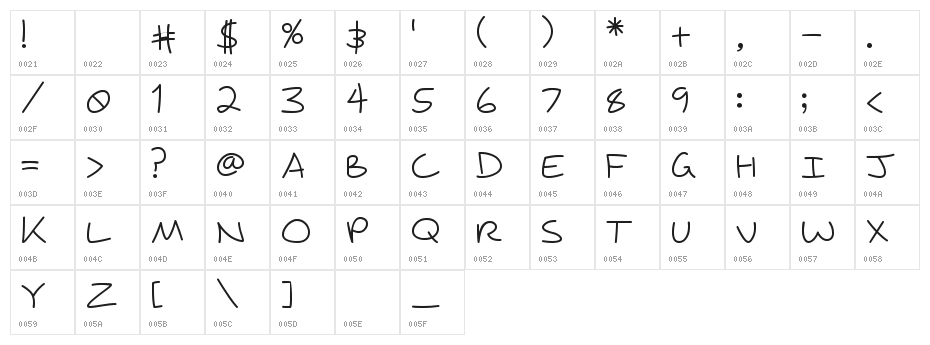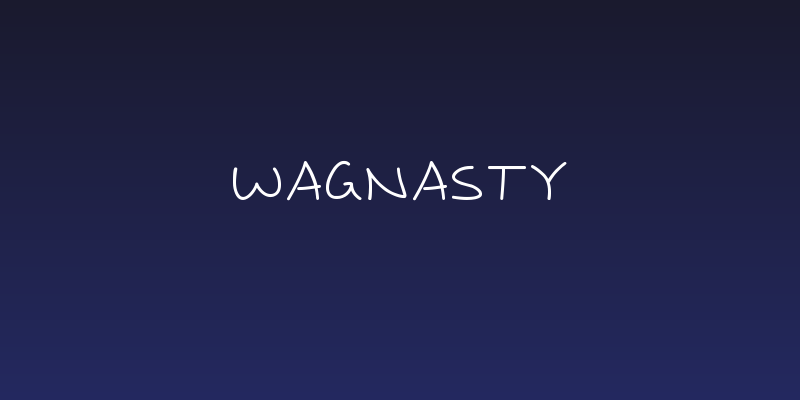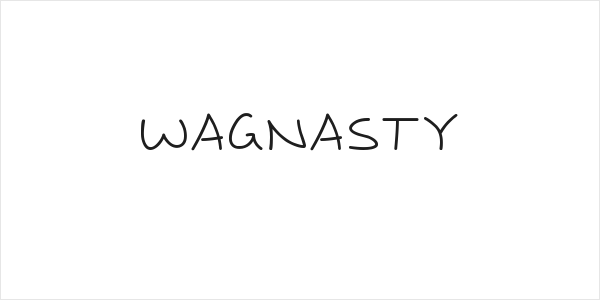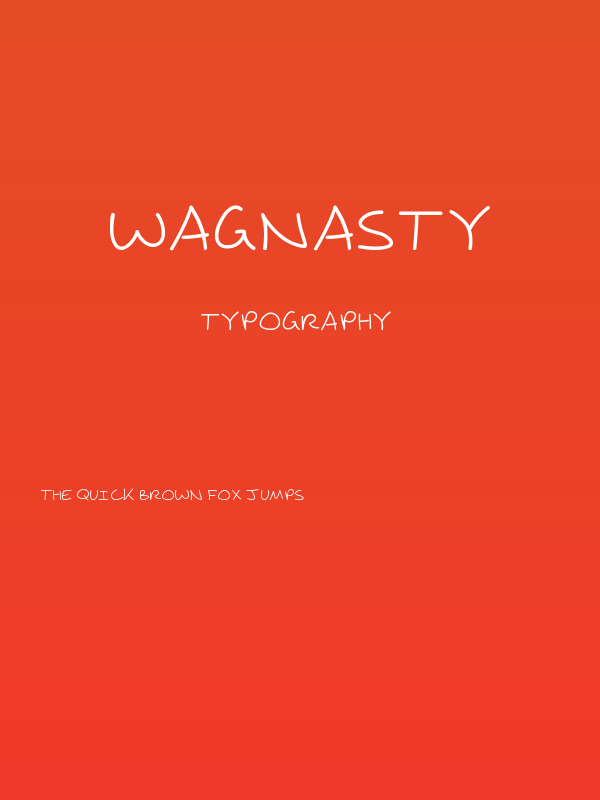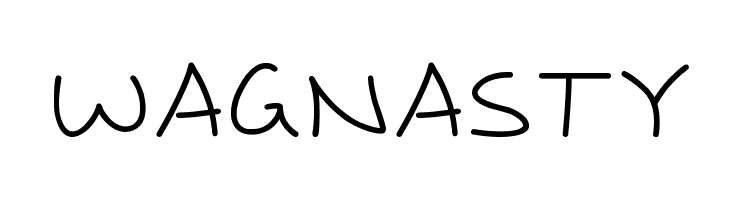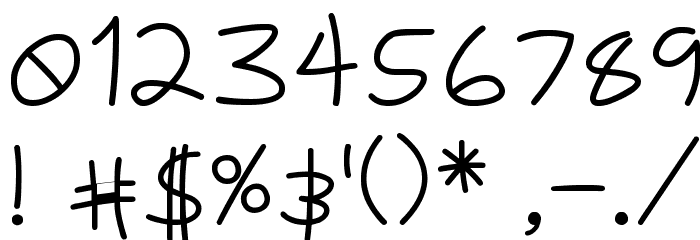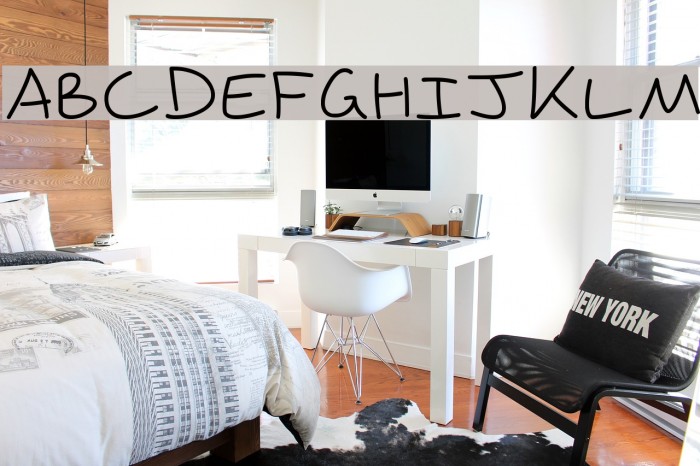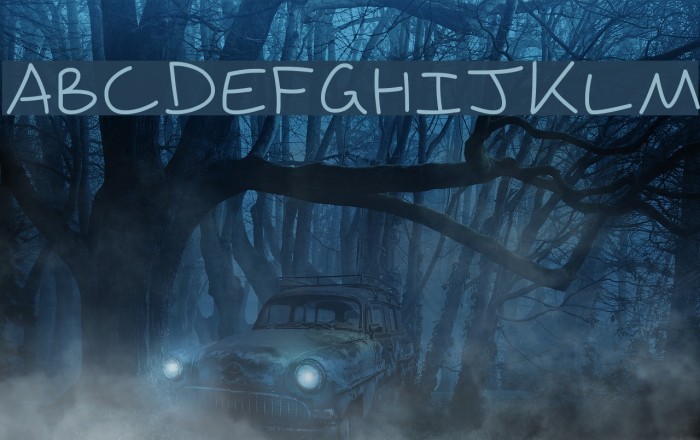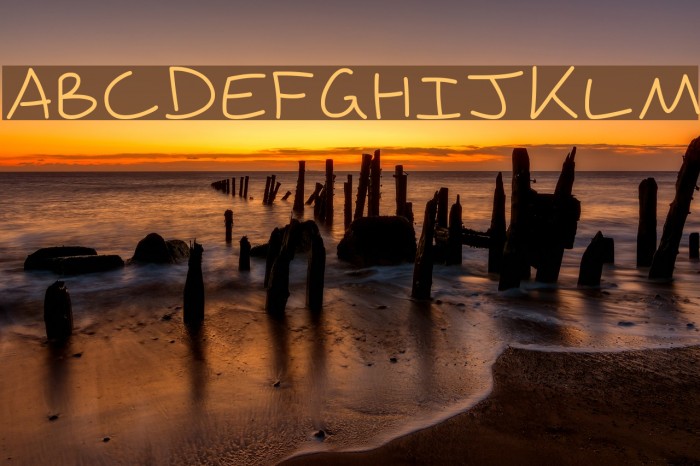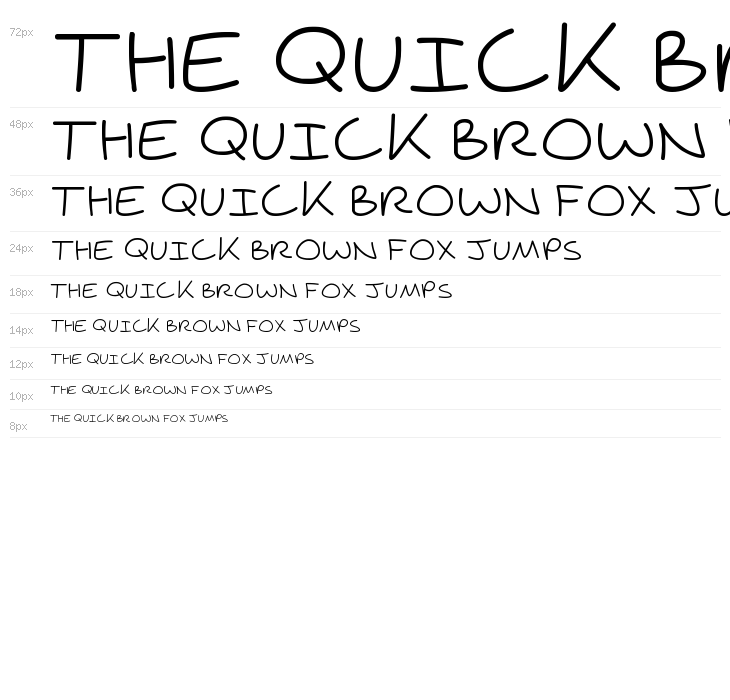
Wagnasty Font
Wagnasty Description
This playful and informal font features a handwritten style with a casual, relaxed appearance. Each character is crafted with a slightly uneven stroke, giving it a natural and authentic feel. The letters are well-spaced, ensuring readability while maintaining a whimsical charm. The font includes both uppercase and lowercase letters, numerals, and a variety of special characters, making it versatile for different uses. Its unique style is perfect for projects that require a personal touch or a fun, approachable aesthetic.
| Proposed Projects | Ideal for greeting cards, children's books, casual invitations, and personal branding. |